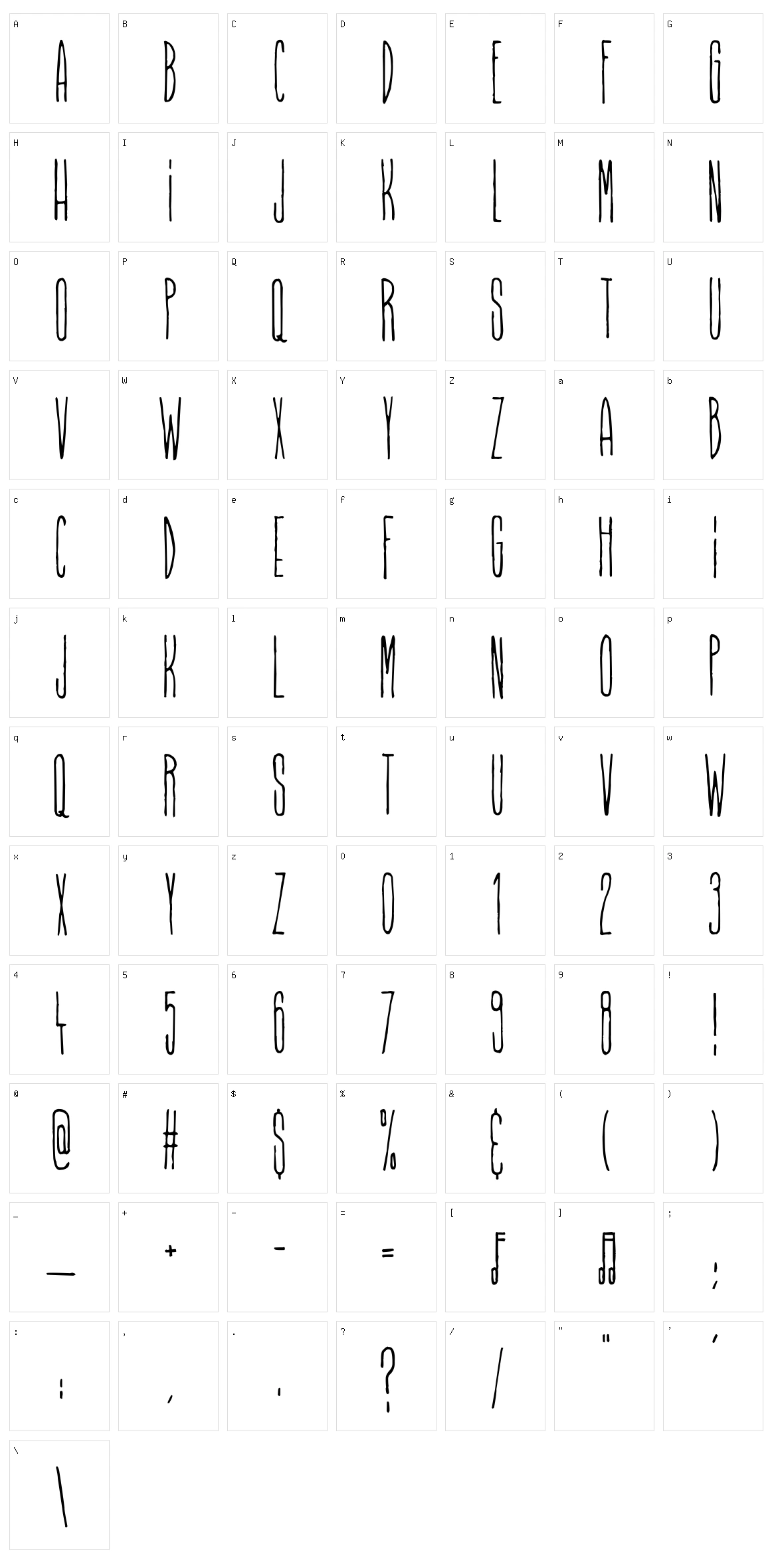
The free font Higher Than High is carefully designed by imagex, showcasing a thoughtful balance of creativity and usability and falls under the Script font style. When you download the ZIP file, it contains only 15.11 KB of font files, making it lightweight and quick to download. Please review the license details below to understand permitted usage and distribution rights. If license information is not available, we recommend using this font for personal projects only or contacting the author directly for commercial usage permissions.